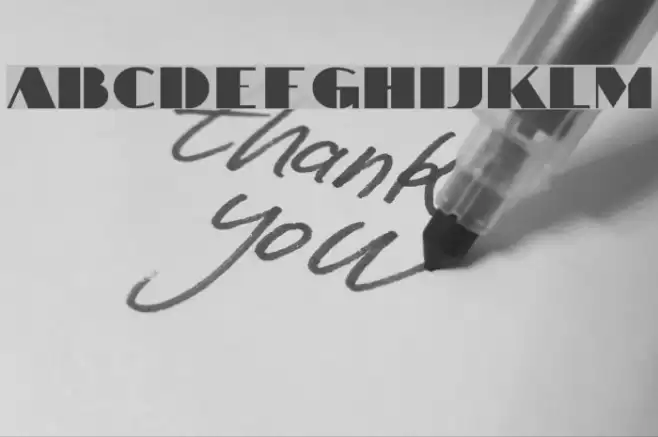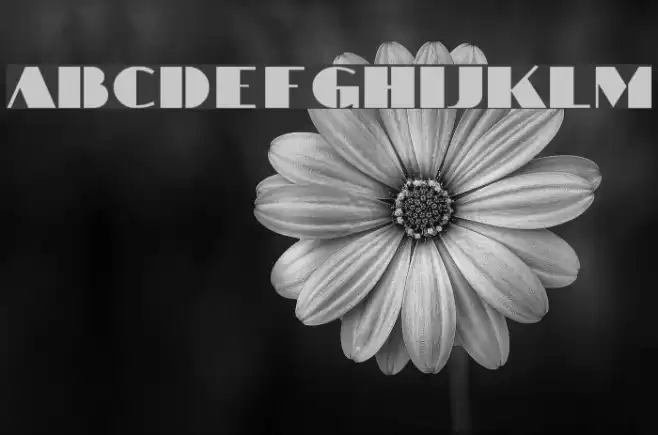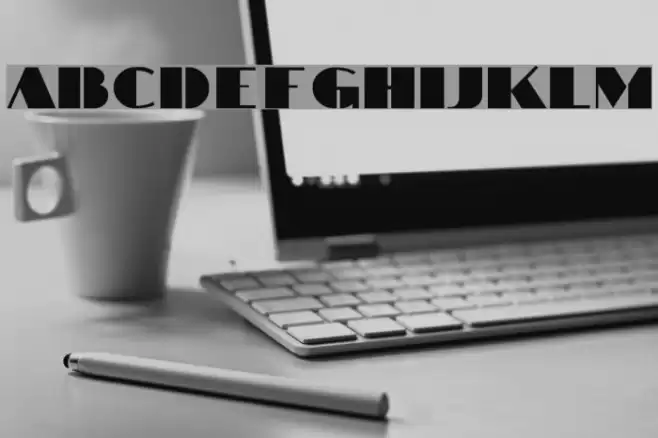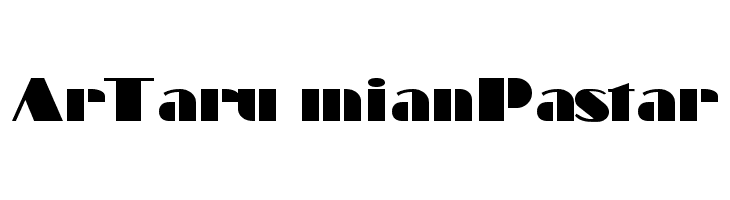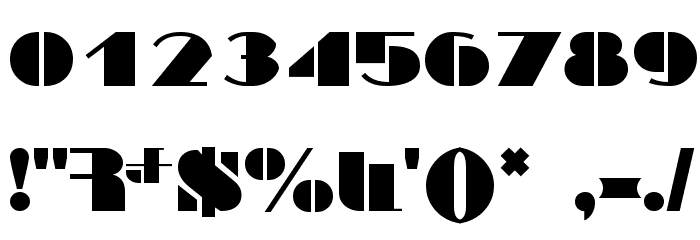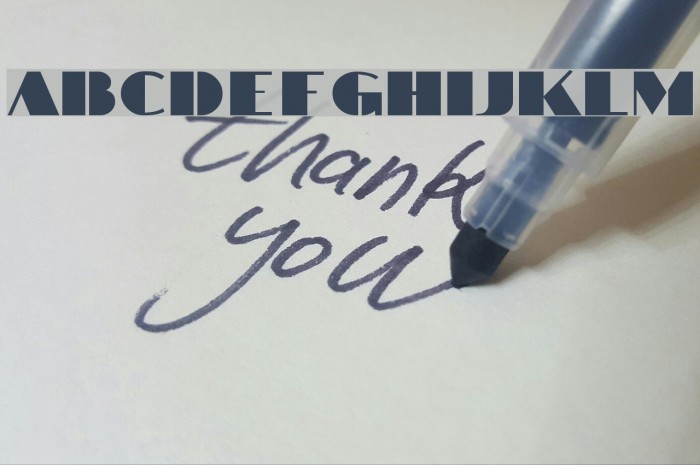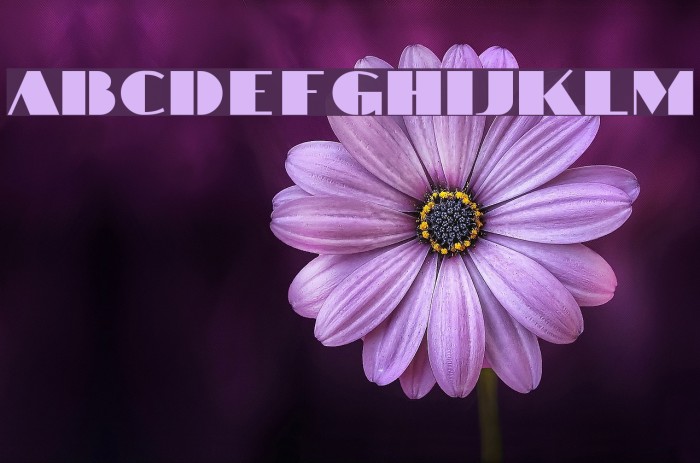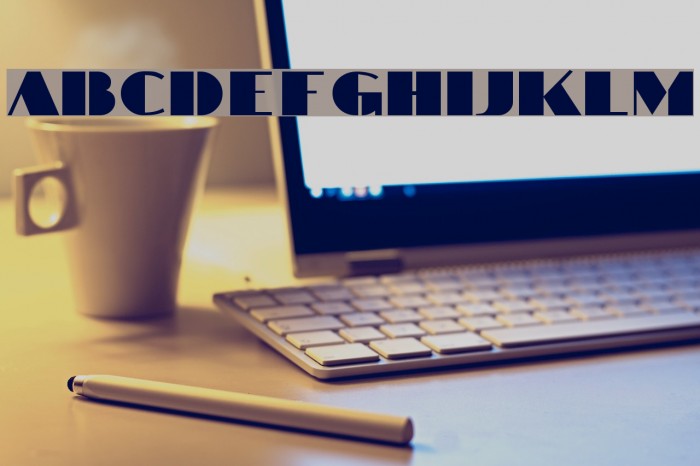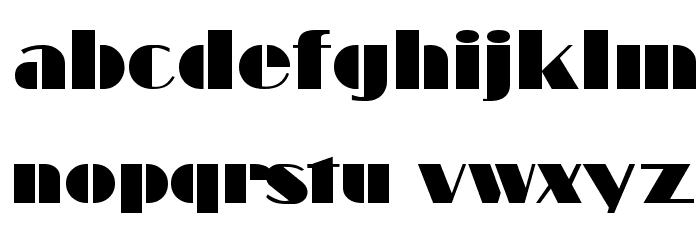
ArTarumianPastar Font
ArTarumianPastar Description
This font features a bold and striking design with strong geometric shapes and high contrast between thick and thin strokes. The uppercase letters are particularly distinctive, with sharp angles and a modern aesthetic. The lowercase letters maintain the boldness, offering a cohesive look across both cases. Numbers and special characters are equally bold, ensuring visibility and impact. The overall design is eye-catching, making it suitable for projects that require a strong visual presence.
A bold, geometric font with high contrast and modern appeal from Uncategorized fonts.
- Proposed Projects: Ideal for branding, posters, headlines, and any project needing a bold statement.